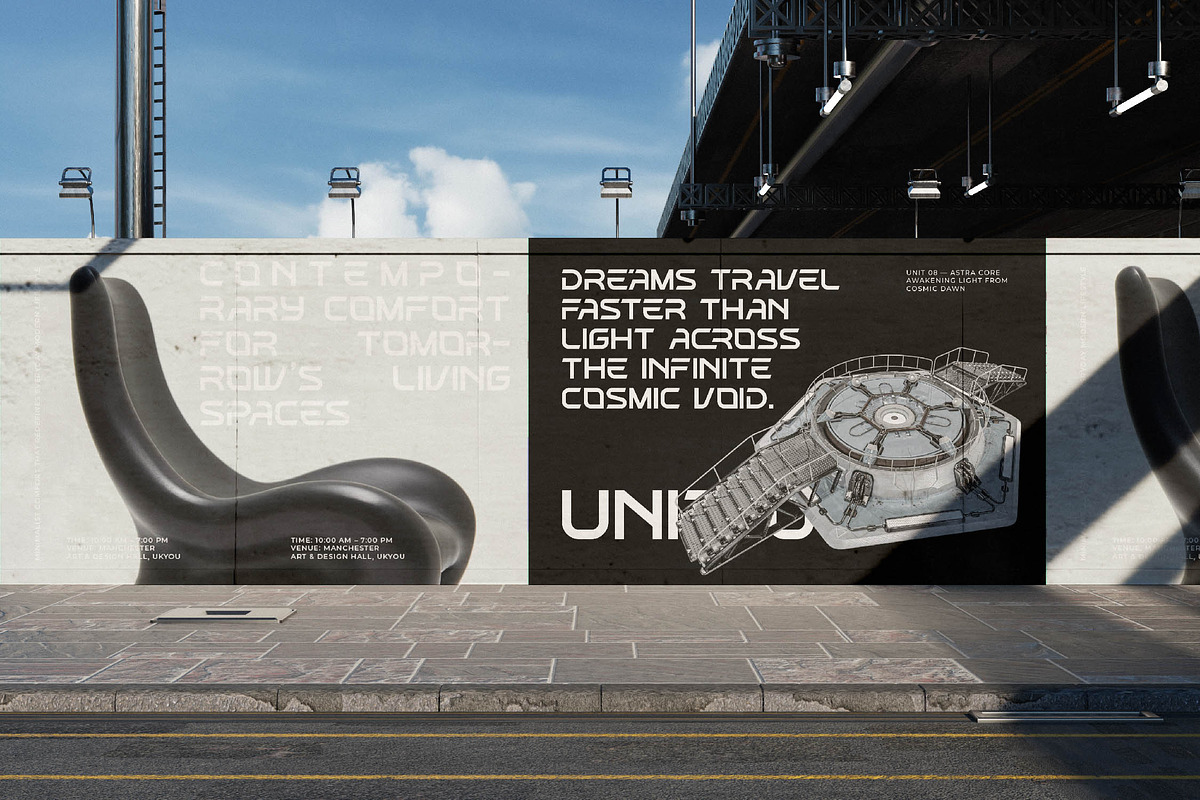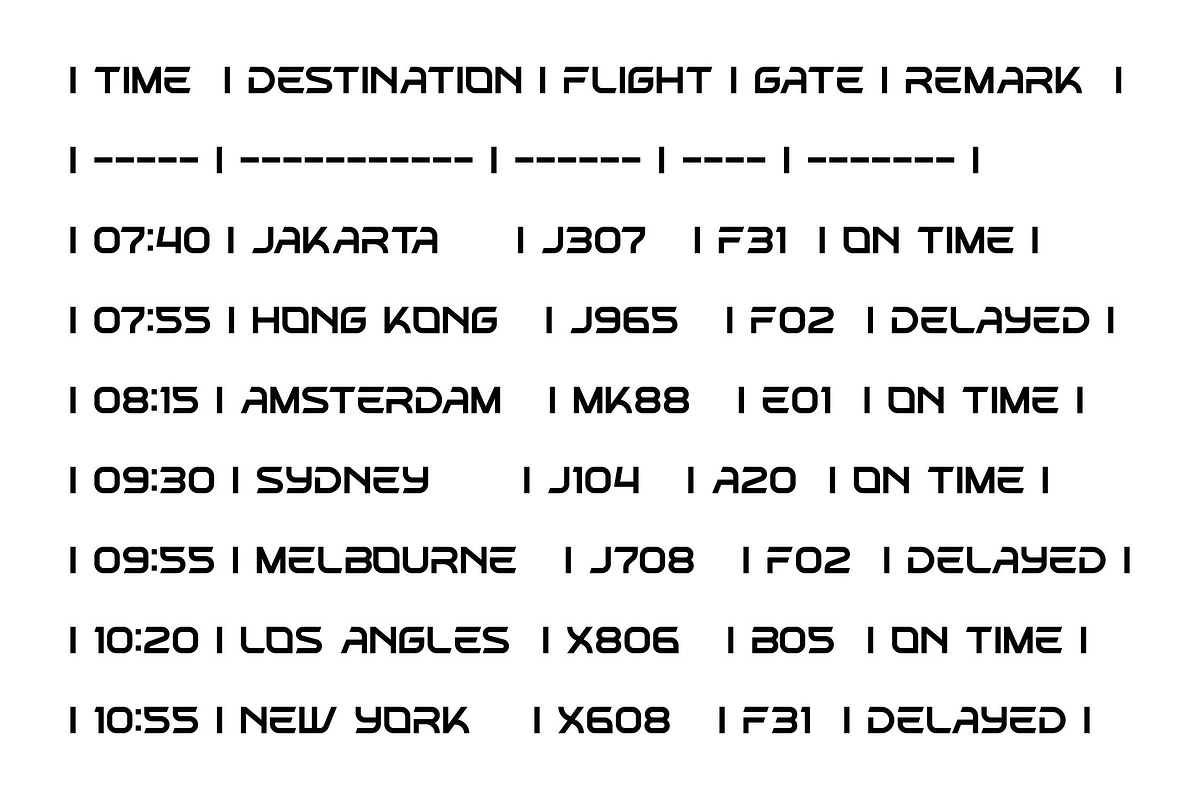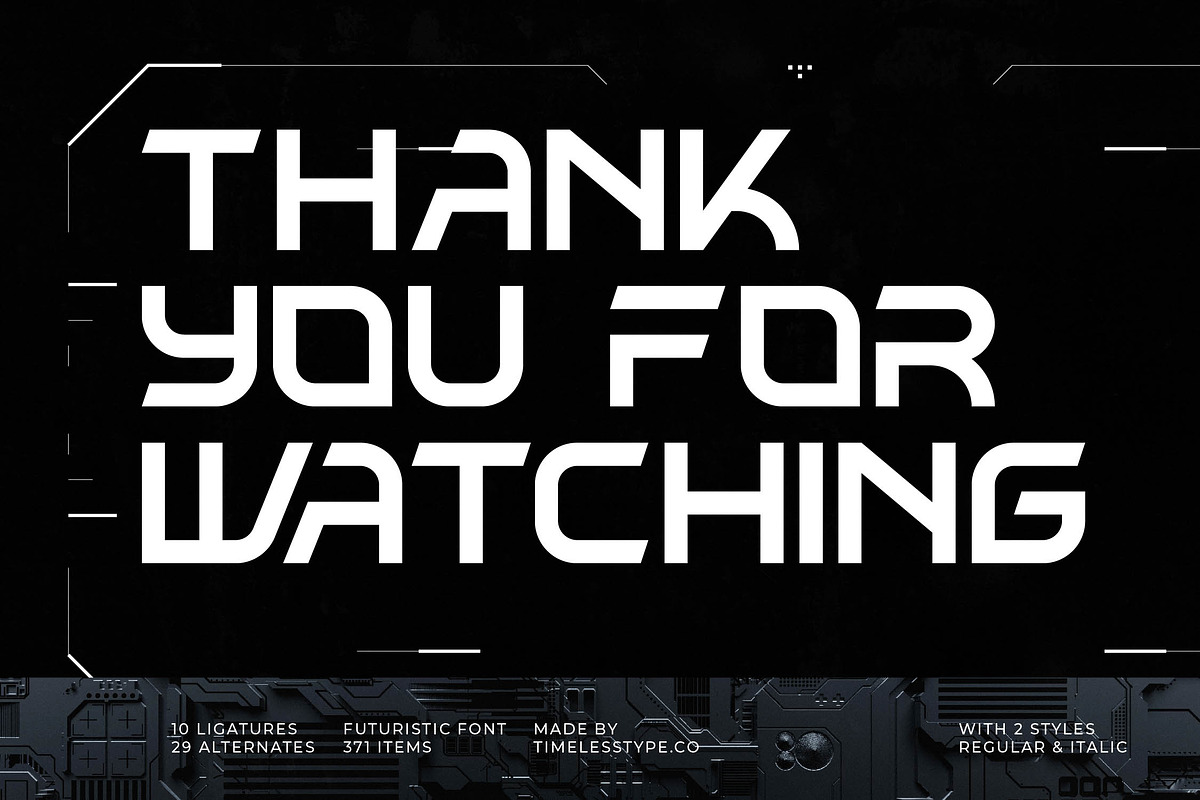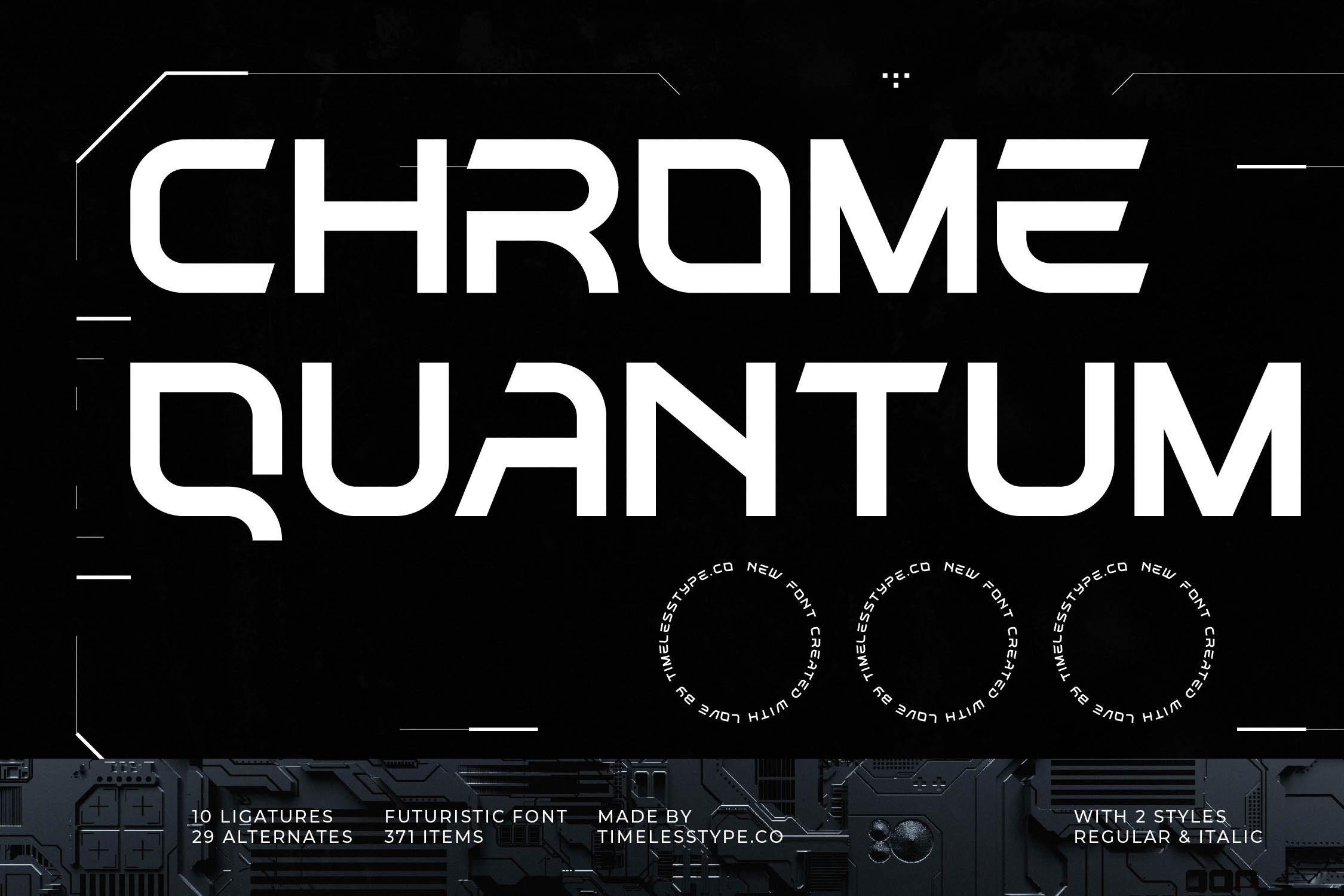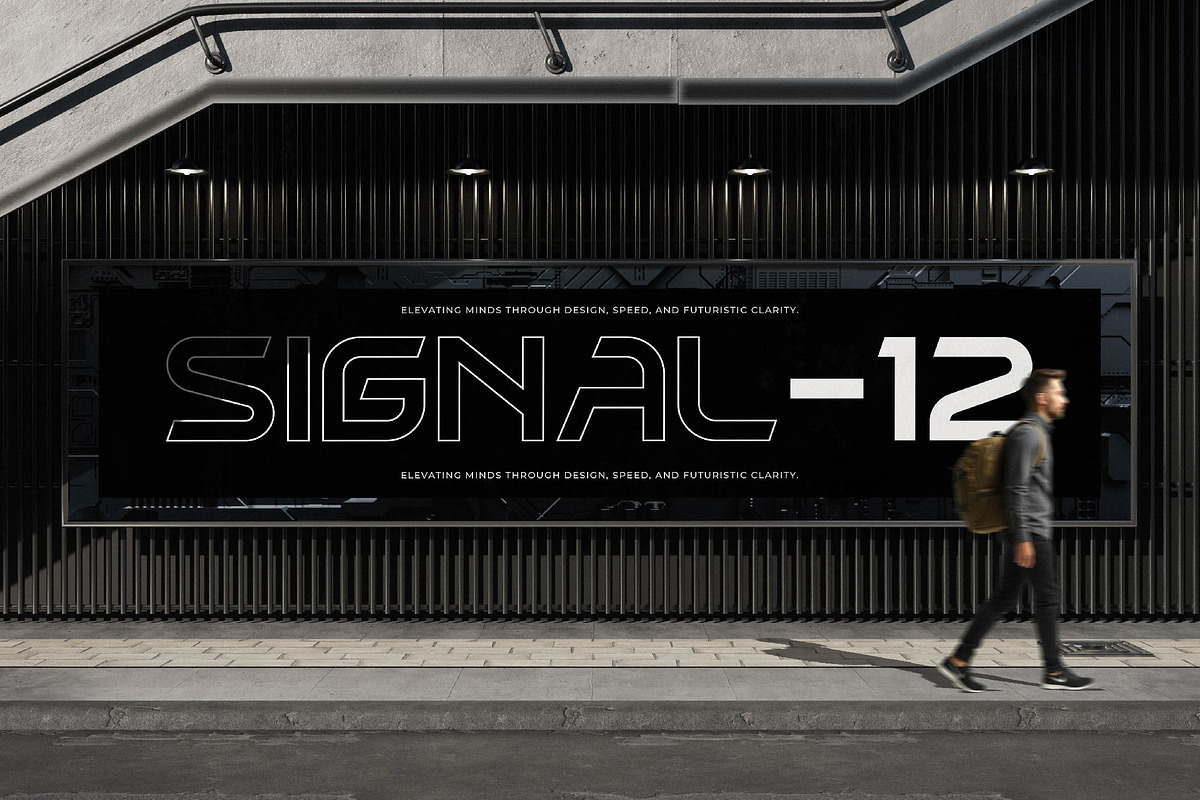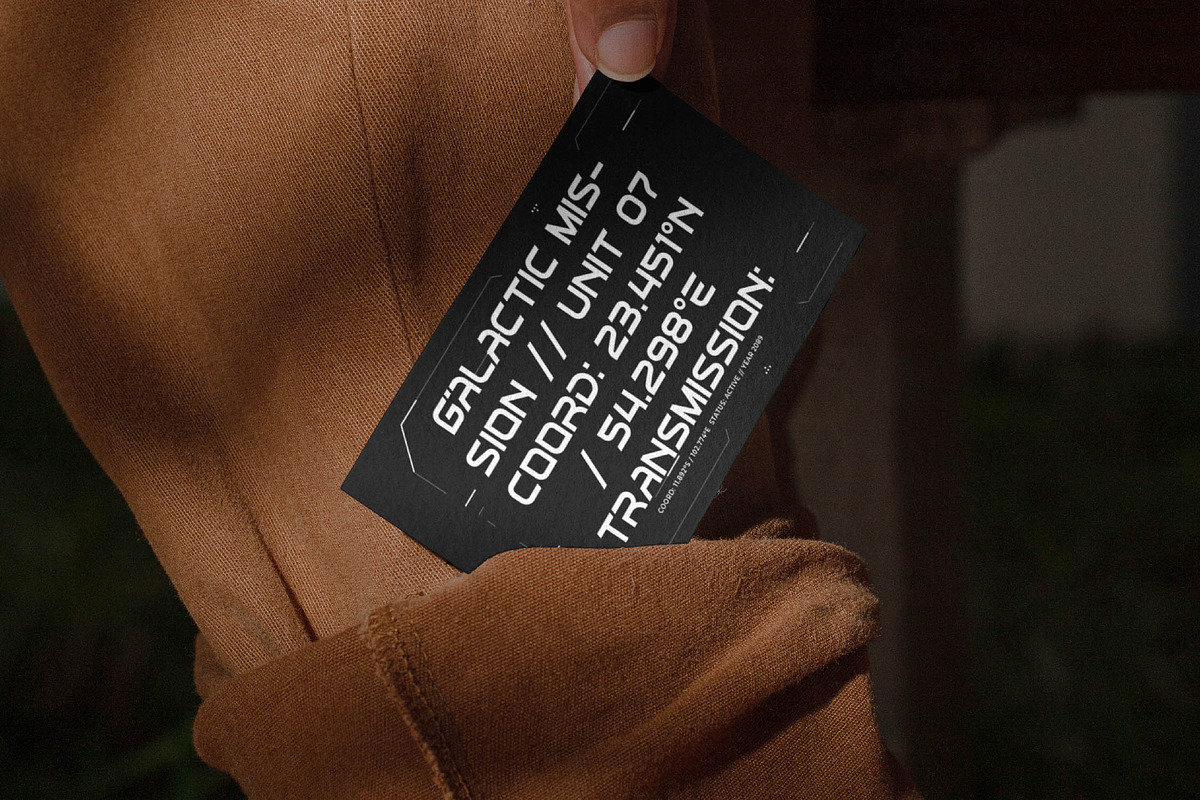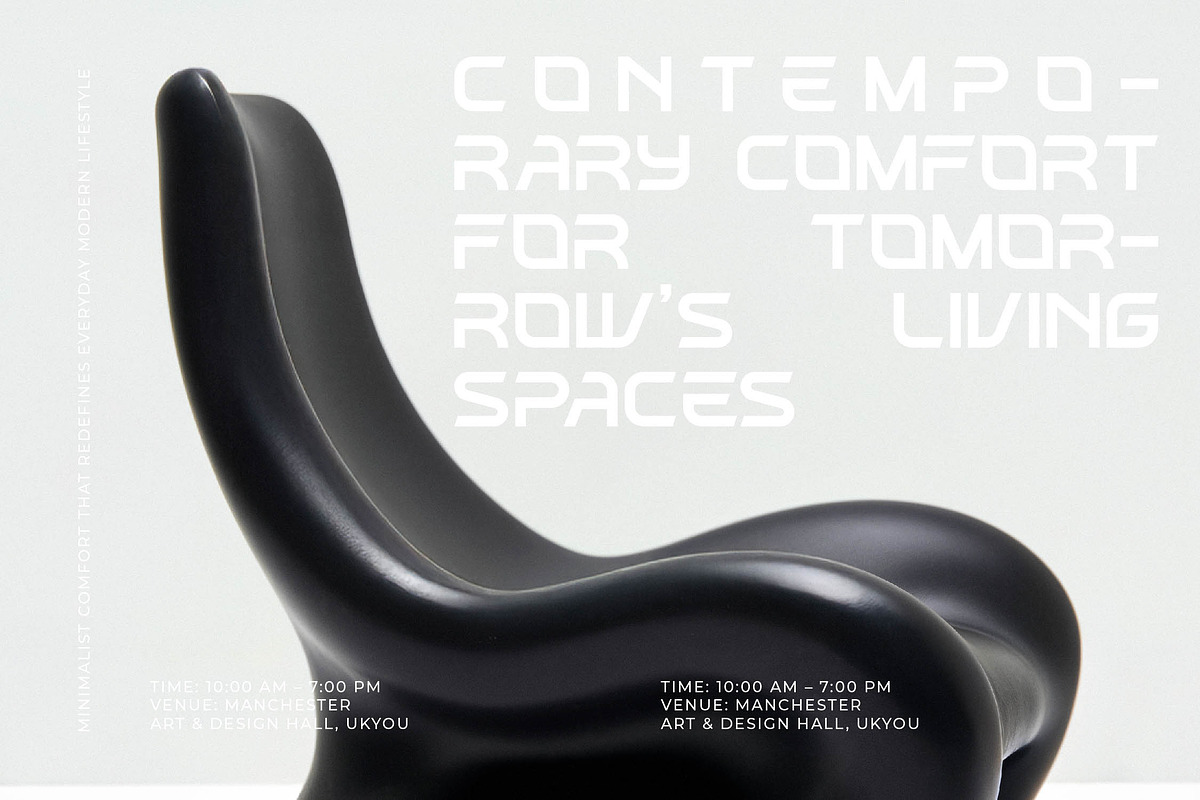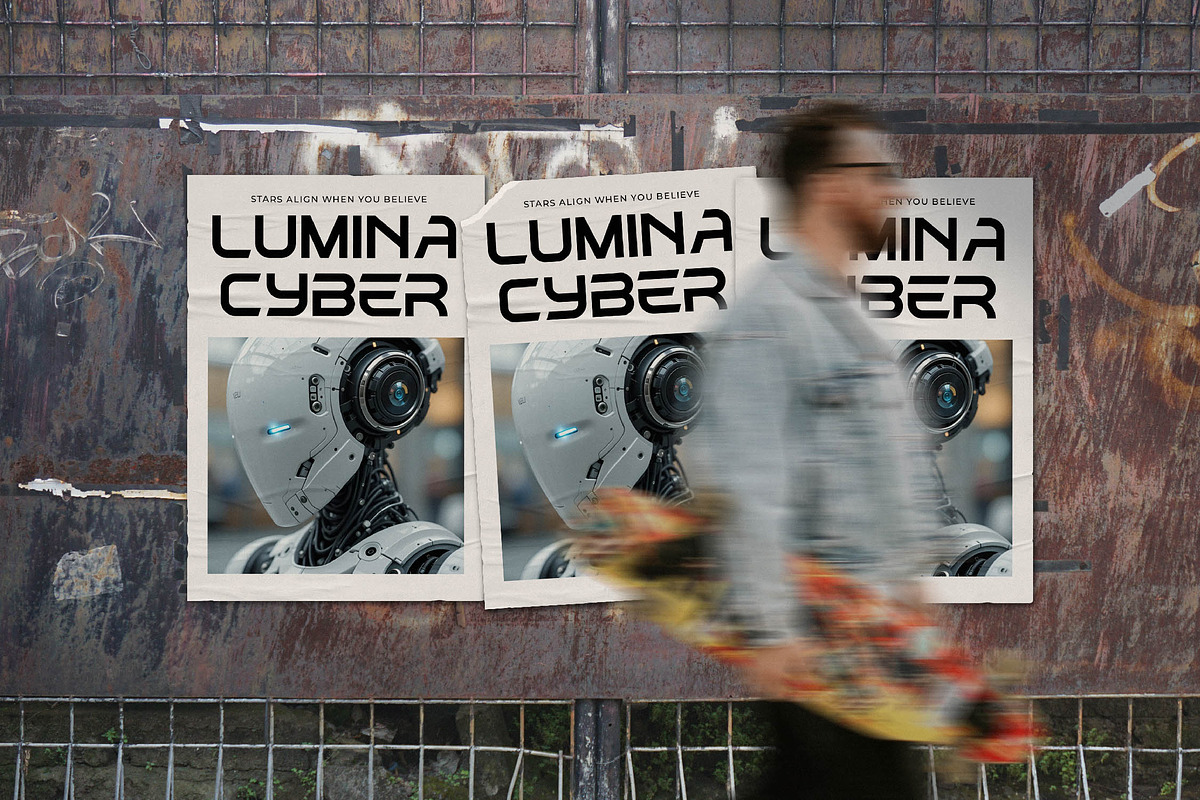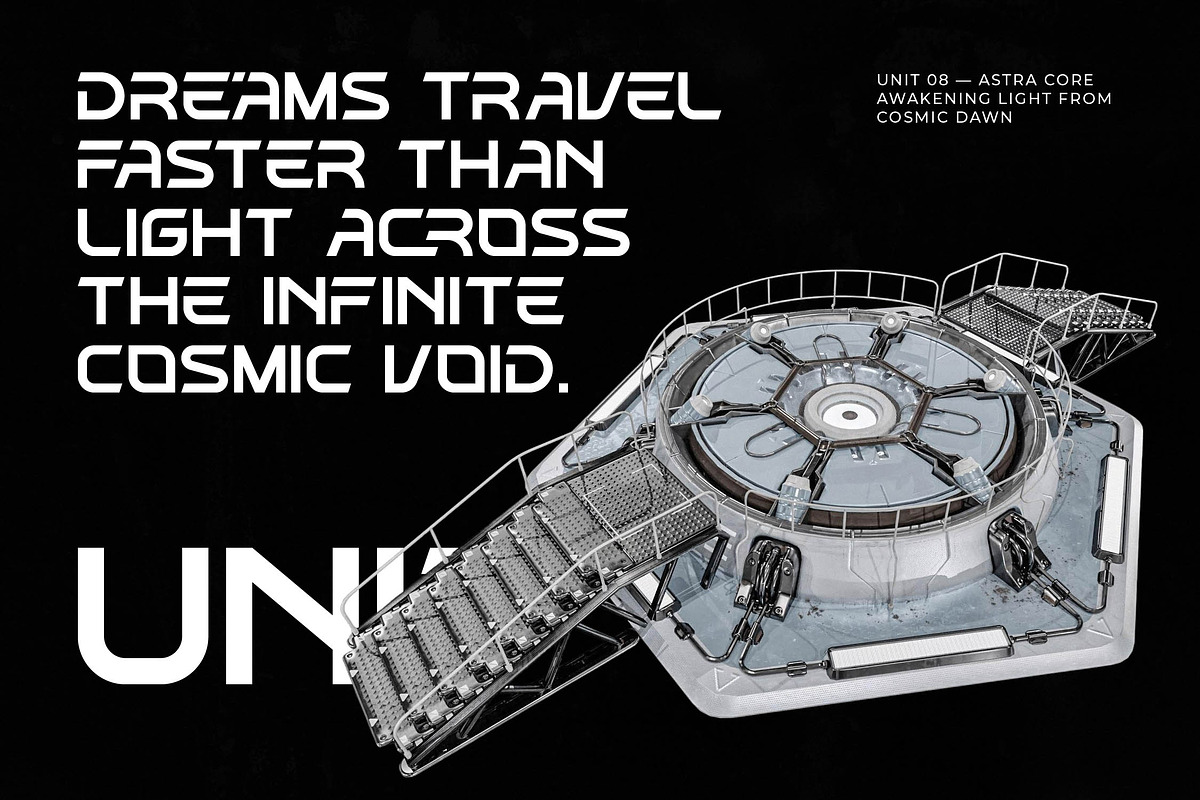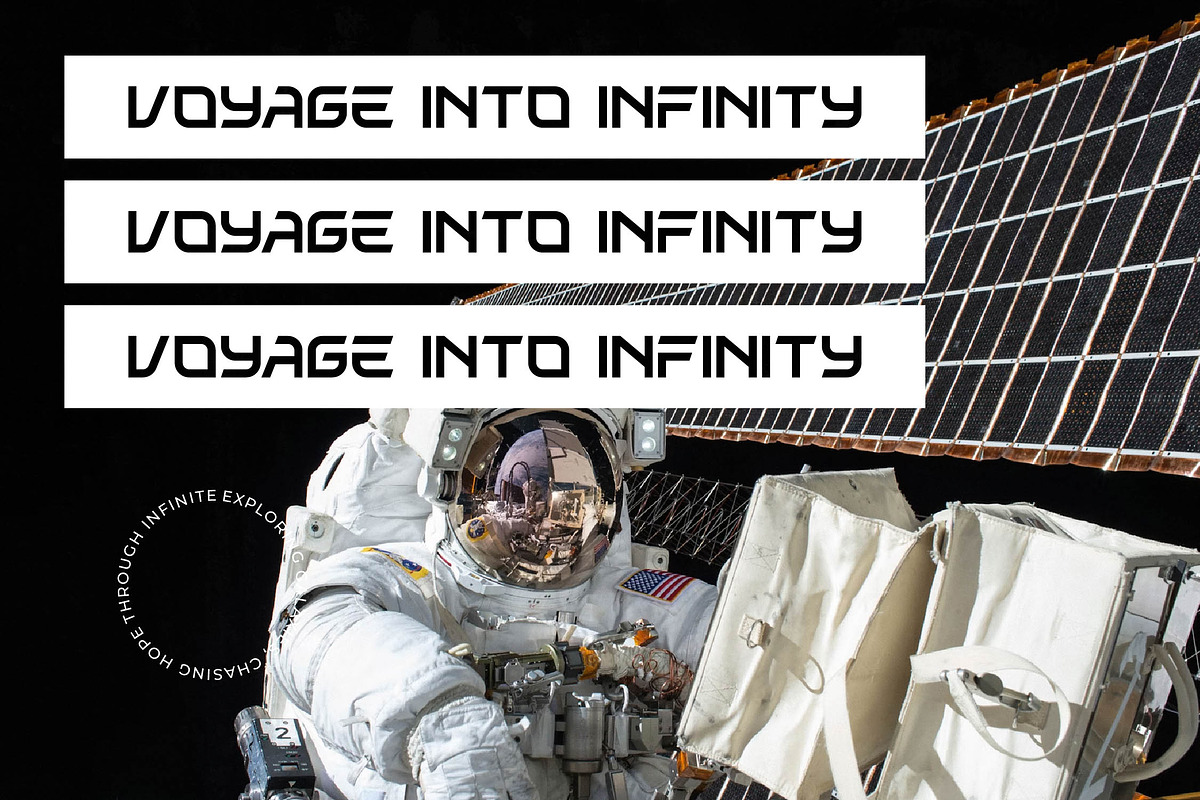
Chrome Quantum Futuristic Font
Experience the cutting edge of visual identity with Chrome Quantum, a typeface designed to bridge the gap between human imagination and machine precision. This font doesn't just display text; it commands the space it occupies with authority and futuristic grace.
Drawing deep inspiration from neo-futuristic architecture and the high-speed data streams of a cyberpunk metropolis, this font embodies a world of boundless potential. Its wide, geometric architecture reflects the cold, sleek surfaces of chrome and the infinite reach of quantum computing.
Define your next masterpiece with a modern sans display that provides the ultimate luxury typography for tech-forward ventures. This high-contrast sans delivers an incredible editorial font experience, ensuring every headline carries a massive branding impact that resonates with a sophisticated audience.
Stay ahead of the modern futuristic trend by implementing editorial display fonts that are built for the digital frontier. Utilize this character-driven typography to carve out a unique niche in a crowded marketplace, proving that your brand is ready for the challenges of tomorrow.
This typeface is perfectly suited for high-concept logo design, corporate branding, and cinematic editorial layouts. It excels in diverse applications ranging from industrial packaging to avant-garde wedding stationery for the modern era and high-end fashion lookbooks.
The font family includes regular and italic styles, featuring a comprehensive set of ligatures and creative alternates for total customization. Expand your global reach with full multilingual support and international characters, while adding flair through its specialized swashes and decorative glyphs.
- Ligature 10 Alternate 29